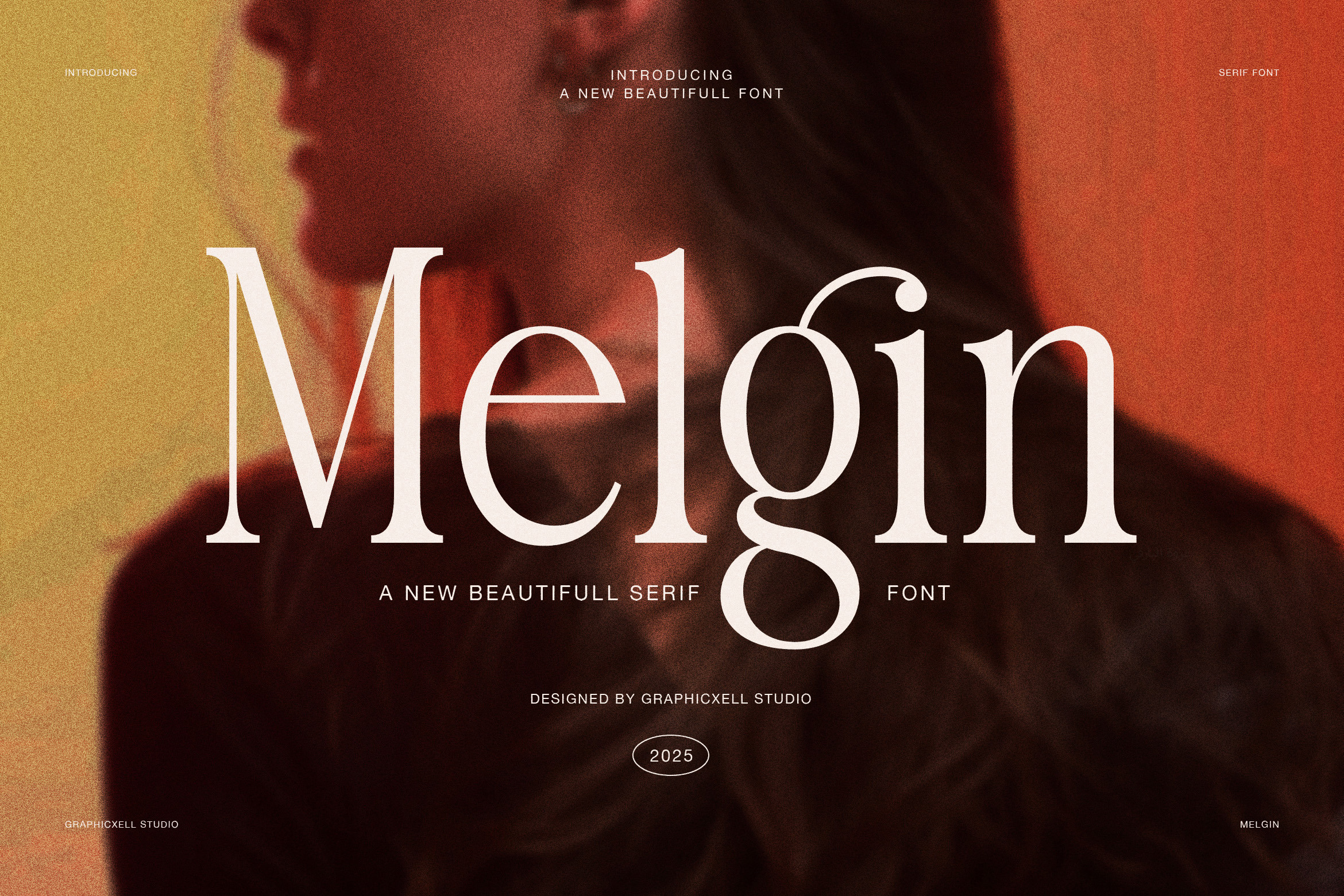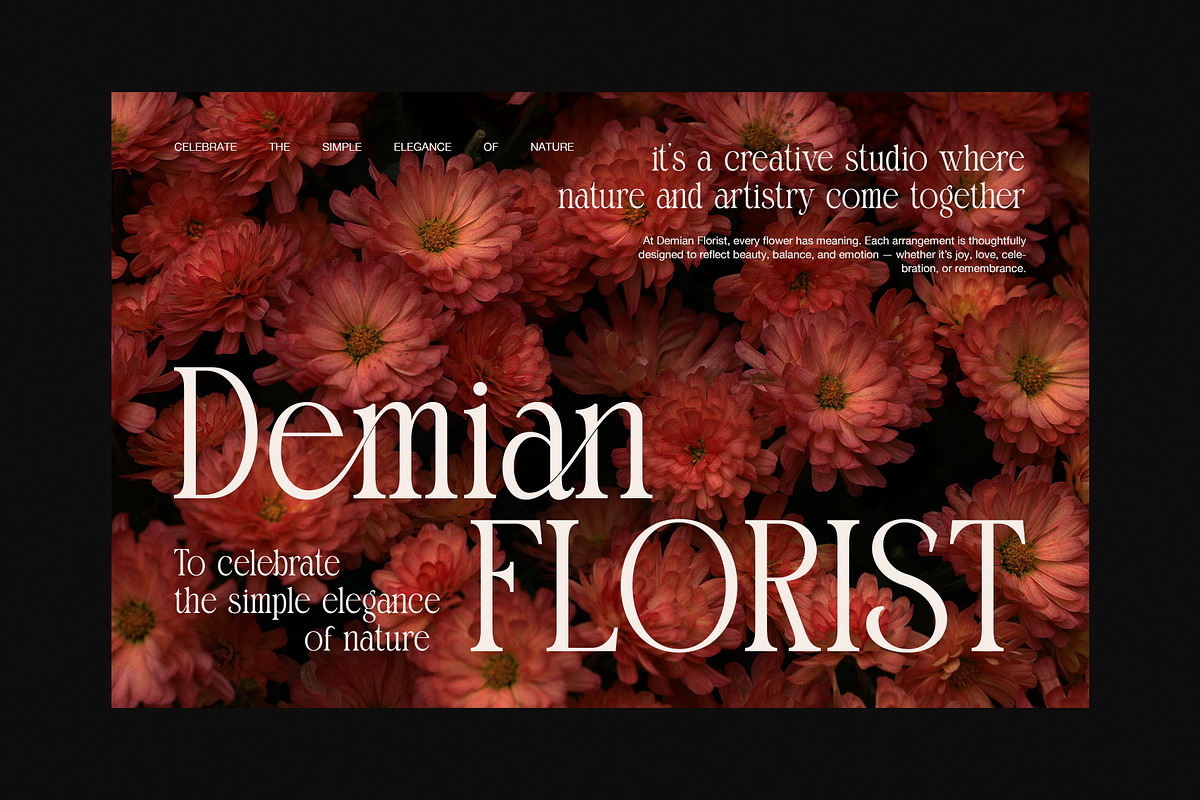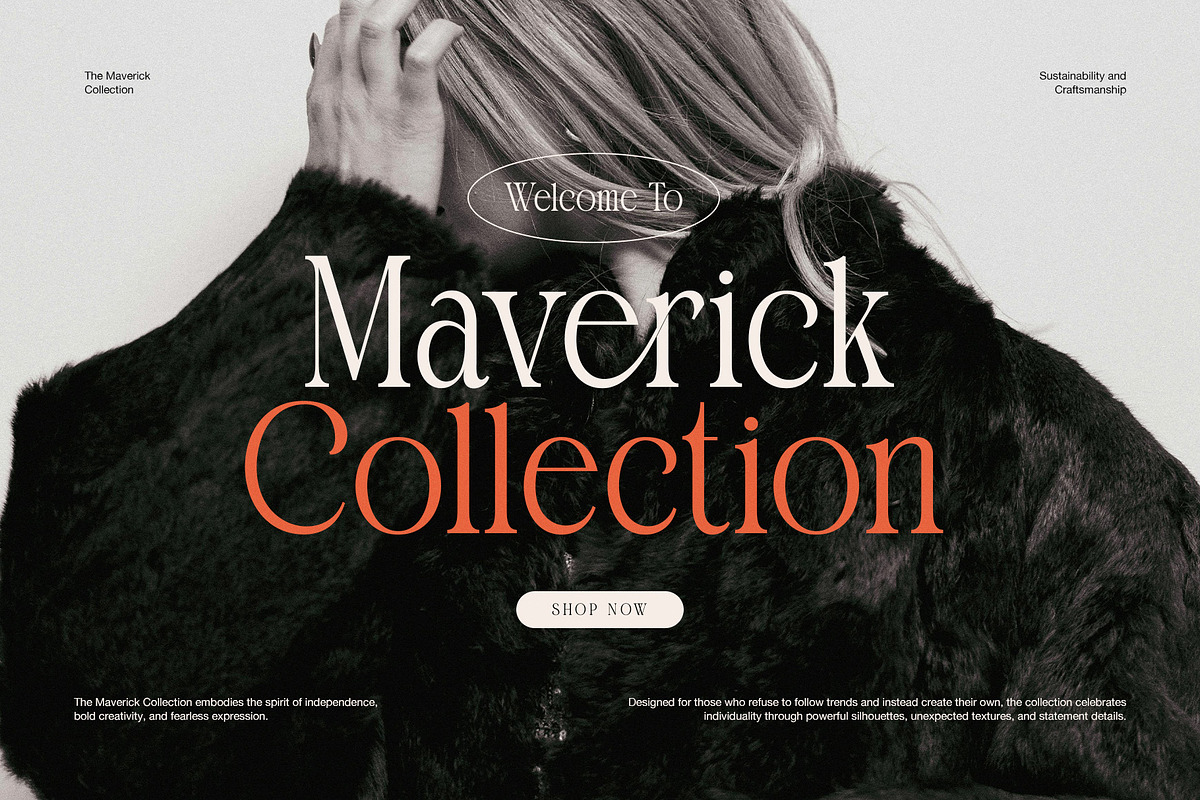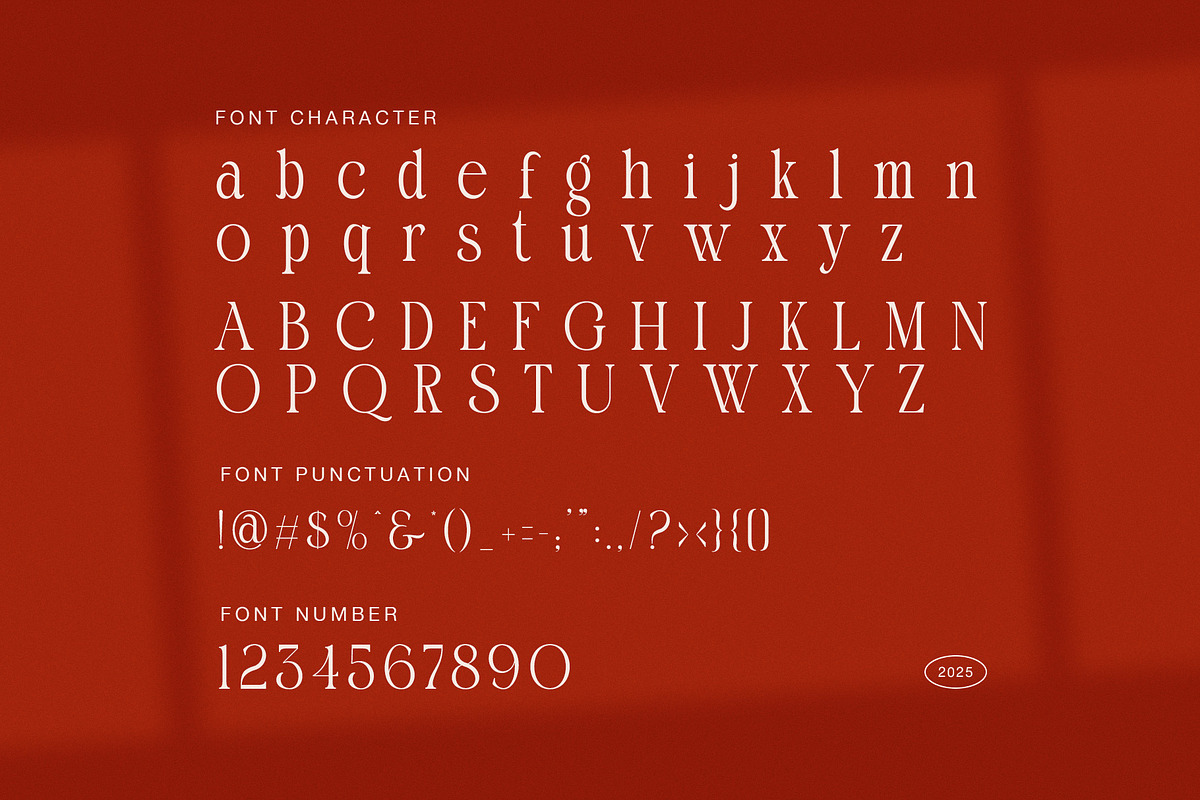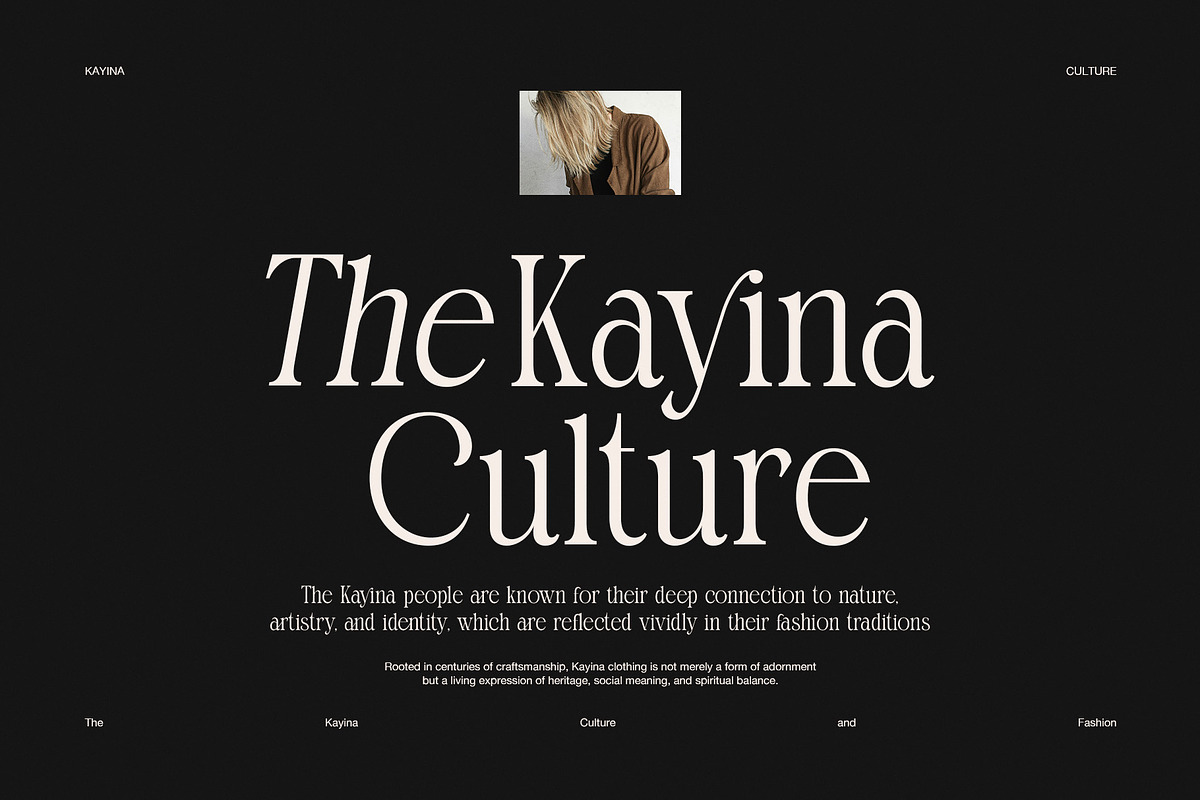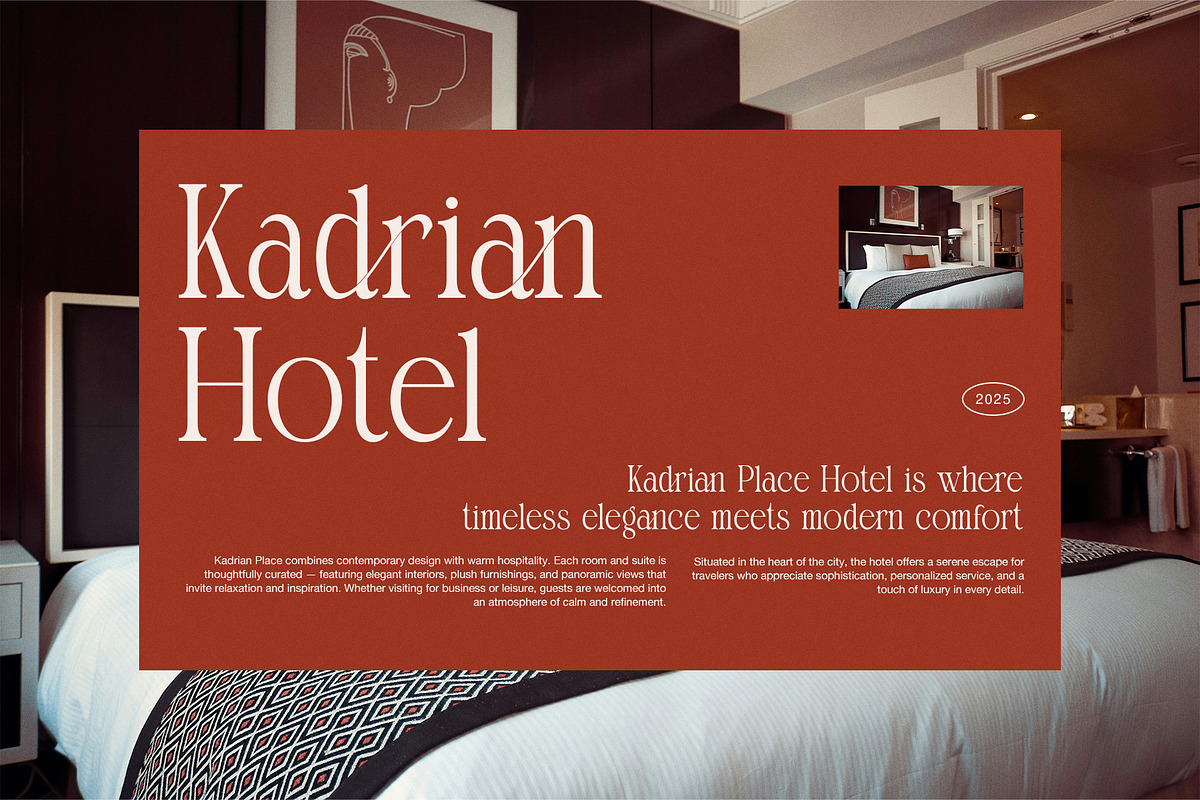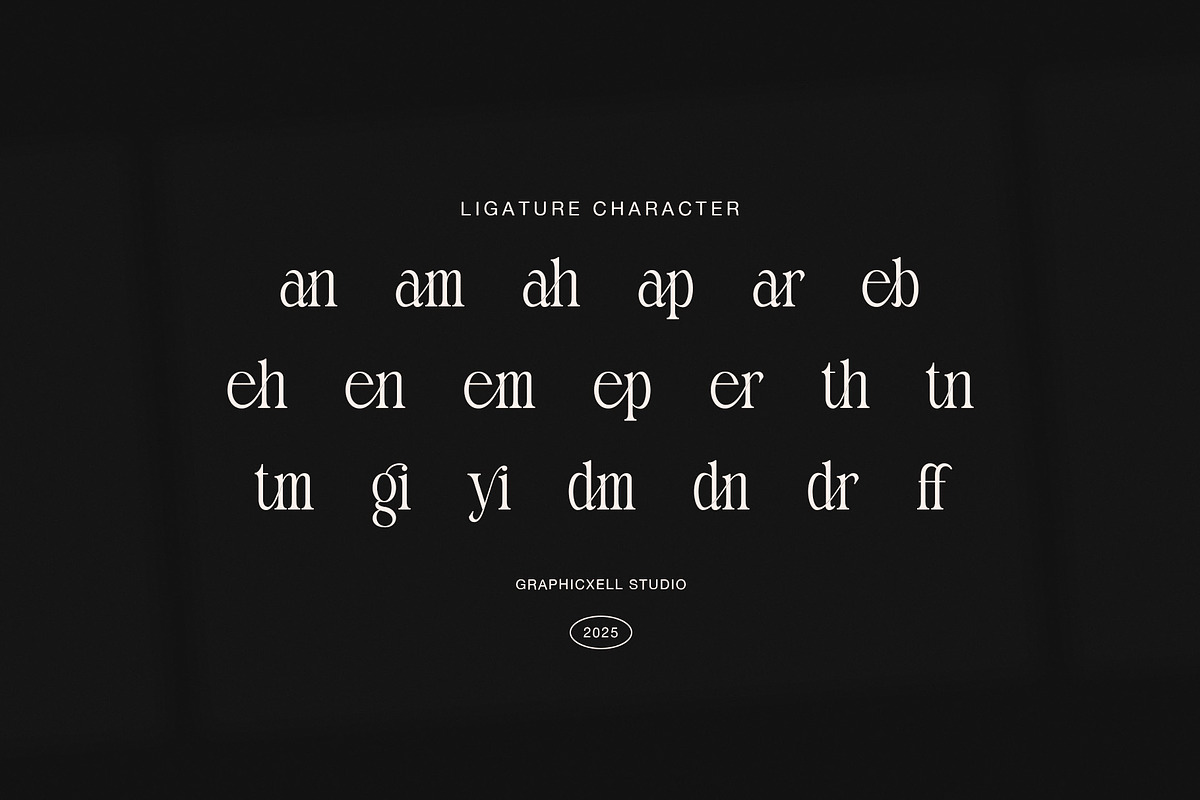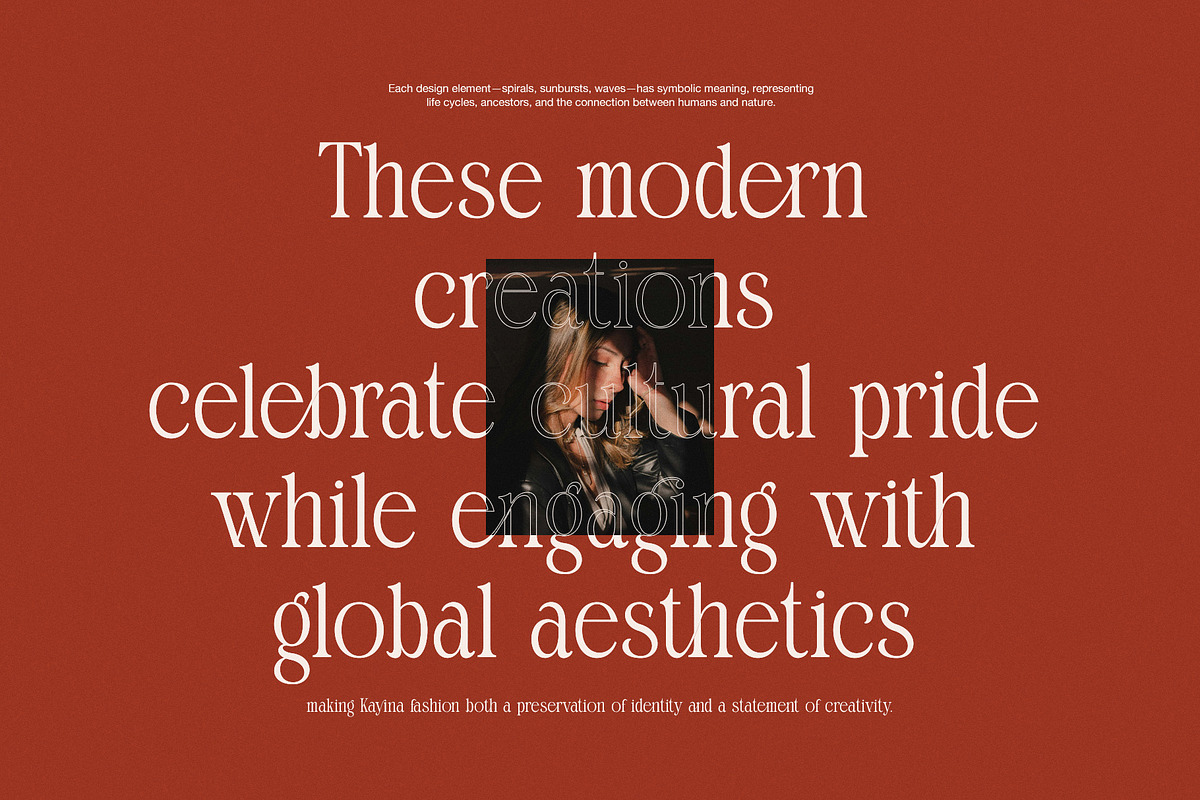
Melgin Elegant Modern Serif Font
Melgin is an elegant modern serif font that brings clarity, refinement, and timeless style to design work. It features graceful curves, high contrast strokes, and balanced proportions. Because the structure feels intentional, Melgin delivers luxury without sacrificing readability.
This serif font blends classic elegance with contemporary aesthetics. As a result, designers use Melgin confidently for fashion editorials, branding systems, and modern websites. Moreover, refined ligatures add personality while keeping the layout clean and controlled. Each letter communicates confidence and visual harmony.
Melgin supports designers who value precision and beauty. Therefore, it works perfectly for logos, hotel identities, magazines, and premium packaging. In addition, it performs strongly in headlines, hero text, and editorial spreads where elegance must lead.
Why choose Melgin Serif Font?
Elegant serif style with modern contrast
Refined ligatures and alternates included
Clear readability in print and digital formats
Ideal for fashion, editorial, and luxury branding
Timeless character with contemporary appeal
Furthermore, Melgin adapts smoothly across creative industries. Whether you design for florists, interiors, cafés, or boutique hotels, this font adds warmth and authority. Because the spacing remains balanced, Melgin pairs beautifully with minimalist sans-serif fonts.
Melgin does more than present words. Instead, it shapes atmosphere and emotion. Each serif feels deliberate, while every curve supports visual flow. Consequently, your designs appear confident, polished, and memorable.
Ultimately, Melgin delivers modern elegance through thoughtful typography. Use it to elevate branding, strengthen storytelling, and express sophistication with clarity.